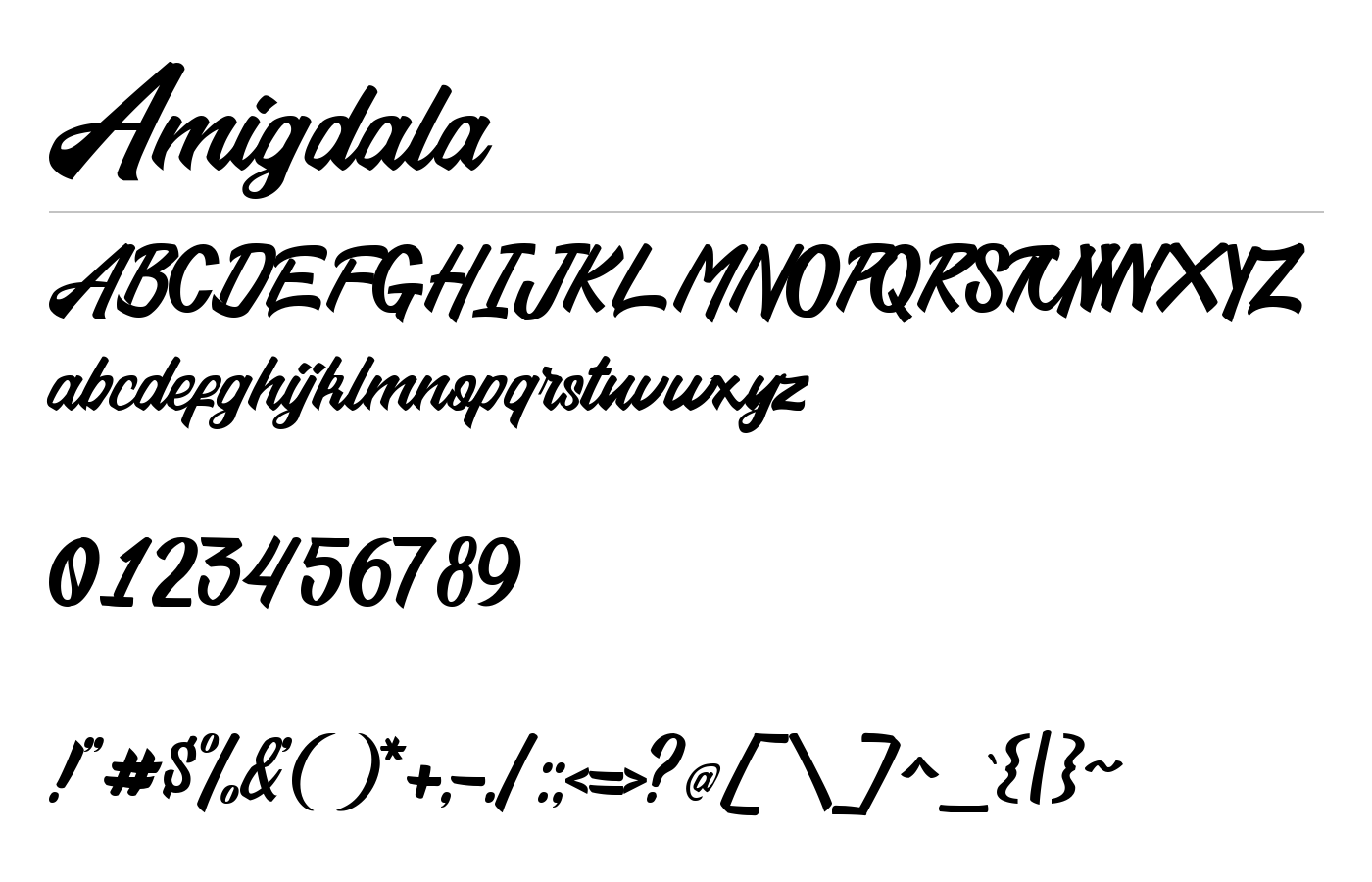
Amigdala is a bold, script-style font with a dynamic and energetic feel, featuring smooth, flowing strokes and a slightly condensed width. Its lively, hand-drawn character makes it ideal for designs seeking a personal and expressive touch, such as logos, posters, and branding that require a bold yet approachable aesthetic. This font works well for headlines and display use where its distinctive, stylish flair can truly stand out.
Amigdala Font
About Amigdala Font